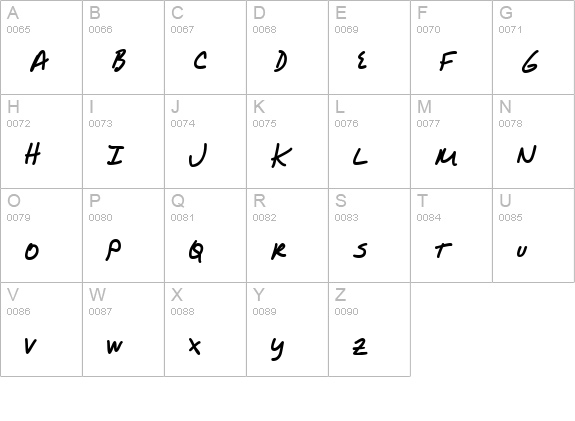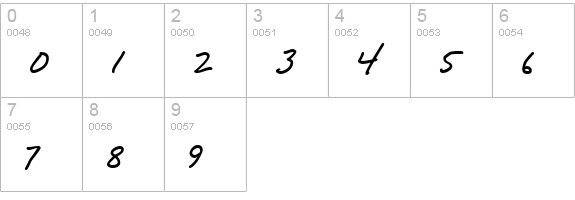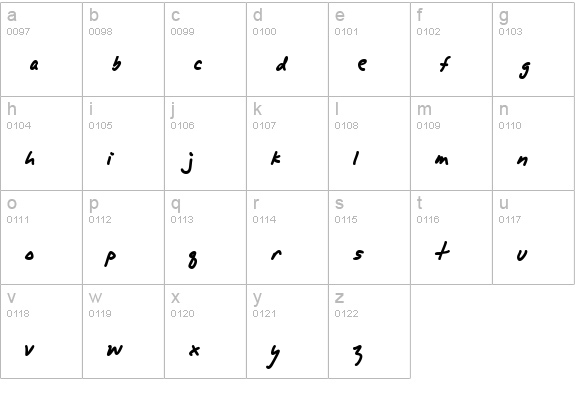
TR AlphaMack font is a modern and stylish typeface that exudes a sense of sophistication and creativity. Its sleek lines and unique design make it perfect for a variety of projects, from branding to editorial design. With its bold and eye-catching appearance, TR AlphaMack is sure to make a statement and leave a lasting impression. The best part about TR AlphaMack font is that it is completely free to download at FontsMarket.com. This means you can access this high-quality font without any cost, making it a valuable resource for designers and creatives looking to add a touch of elegance to their work. Don't miss out on the opportunity to enhance your projects with the stunning TR AlphaMack font, available for free download now!